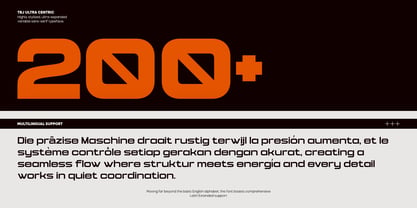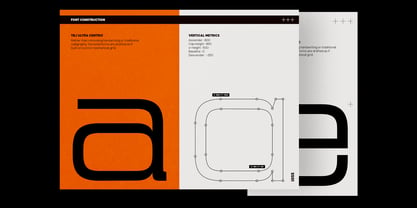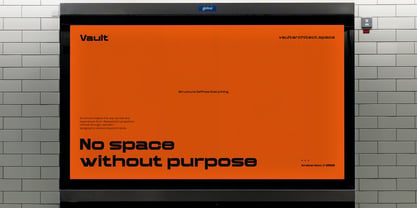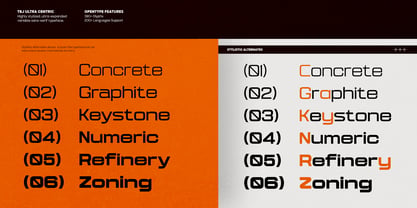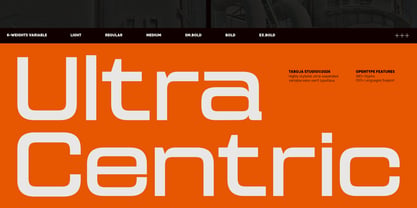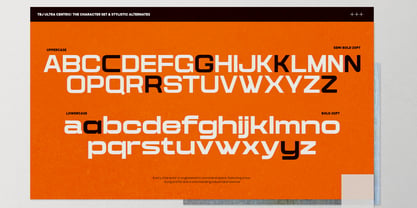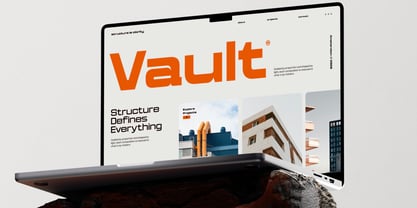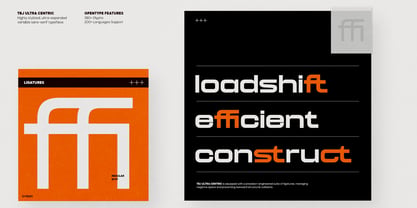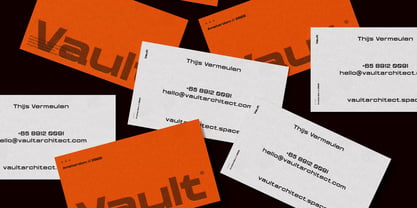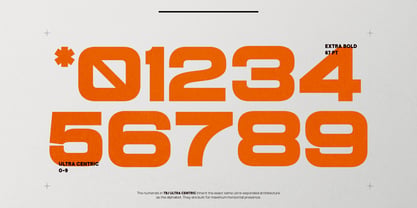
TBJ Ultra Centric
by Taboja Studio
The TBJ Ultra Centric Font Family was designed by Yusilo Oktaprima Ardani and published by Taboja Studio. TBJ Ultra Centric contains 6 styles and family package options. More about this family
TBJ Ultra Centric Sans Expanded is a modern wide sans serif typeface built for bold and impactful visual communication. Designed with expanded proportions and clean structure, this font delivers a strong presence across headlines, branding, and display use. With 6 weights ranging from Light to Extra Bold, it offers flexibility for both subtle layouts and heavy, attention-grabbing compositions. Each weight maintains consistency while increasing visual power, making it perfect for logos, posters, editorial design, sports branding, and digital content. Its wide form and contemporary style create a confident, urban feel—ideal for designers who want a modern, strong, and versatile sans serif family. And if you spot anything unusual or just want to share some feedback, don’t hesitate to let us know! We're always looking to improve and fine tune.